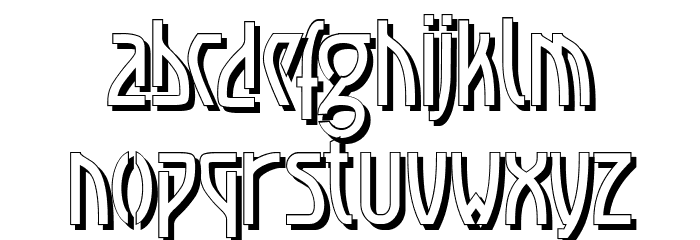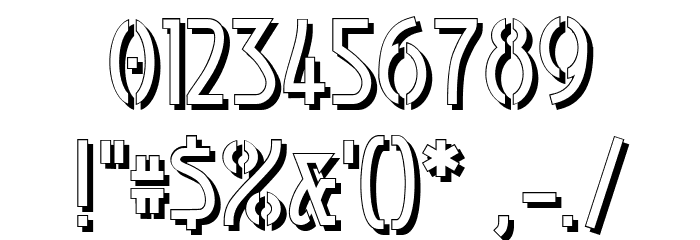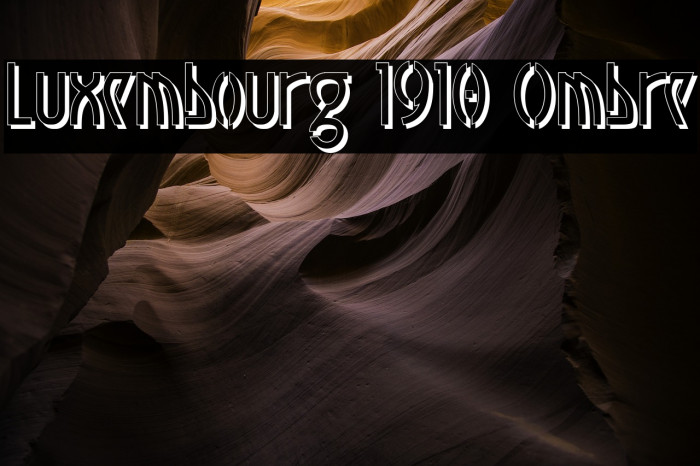
Luxembourg 1910 Ombre Font
This font features a bold, three-dimensional design with a distinct shadow effect that gives it a striking appearance. The characters are uppercase and lowercase letters, numbers, and a variety of special symbols. The shadowing creates a sense of depth, making each character stand out prominently. The overall style is decorative, with a modern twist that adds a unique flair to any design. The font's structure is clean and geometric, with consistent line thickness and sharp angles that contribute to its bold presence.
A bold, 3D shadowed font with a modern, decorative style.
- Proposed Projects: Ideal for poster designs, headlines, logos, and any project requiring a bold, eye-catching typeface.
- Overall Style: Modern, Decorative